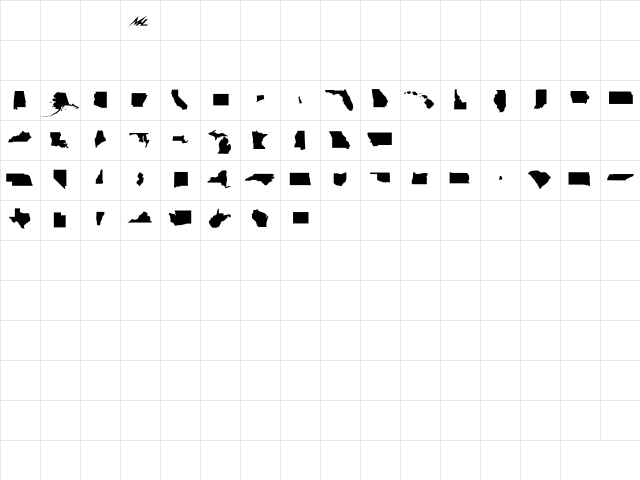
USA Bold
Design Context for USA Typeface
USA is a composed and adaptable typeface that performs quietly and consistently across a wide range of design contexts. Its bold stroke weight gives it real presence on the page.